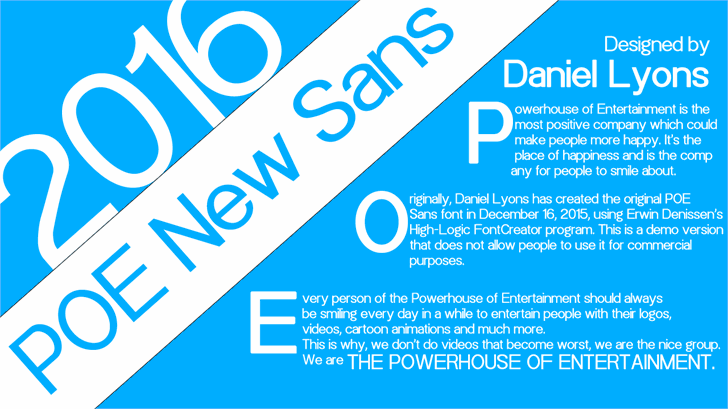
POE Sans New Font Family
POE Sans New font — Created in 2015 by 538Fonts
POE New Sans is a new version of the other POE Sans Pro font, and the title of this font is based off of Stanley Morison’s Times New Roman font designed in 1931. POE New Sans was designed in 2016 by me. And there are four styles in this zip set.